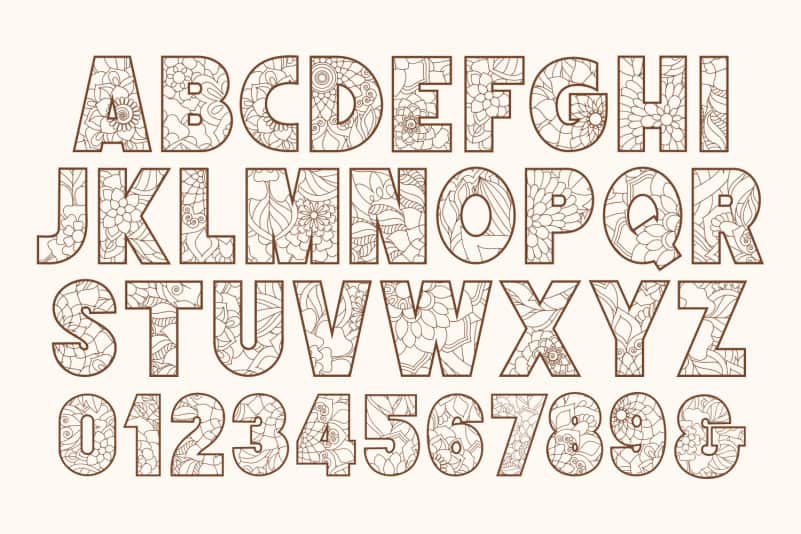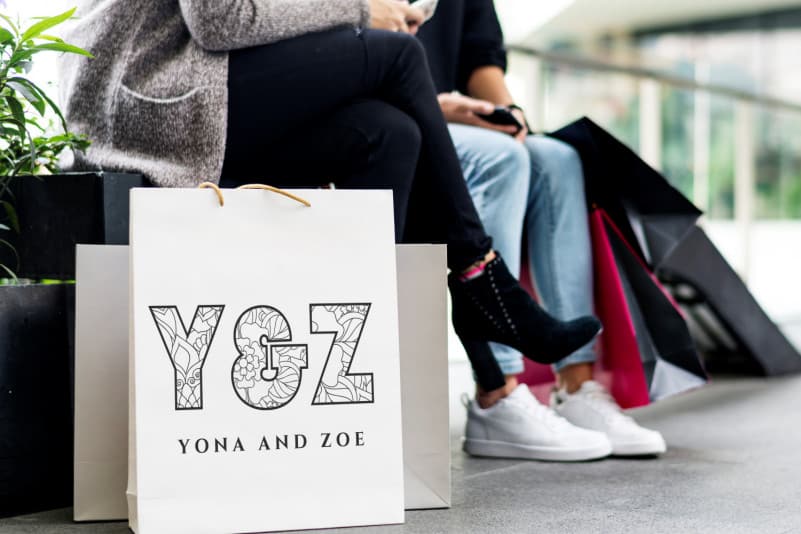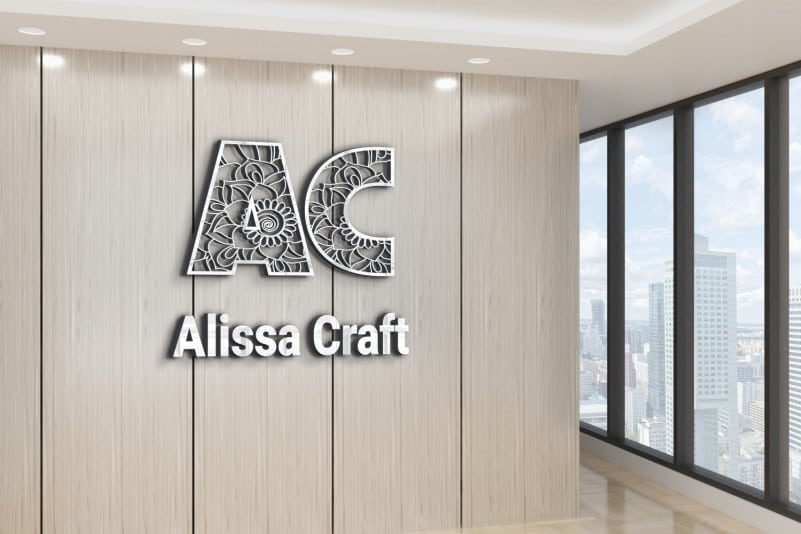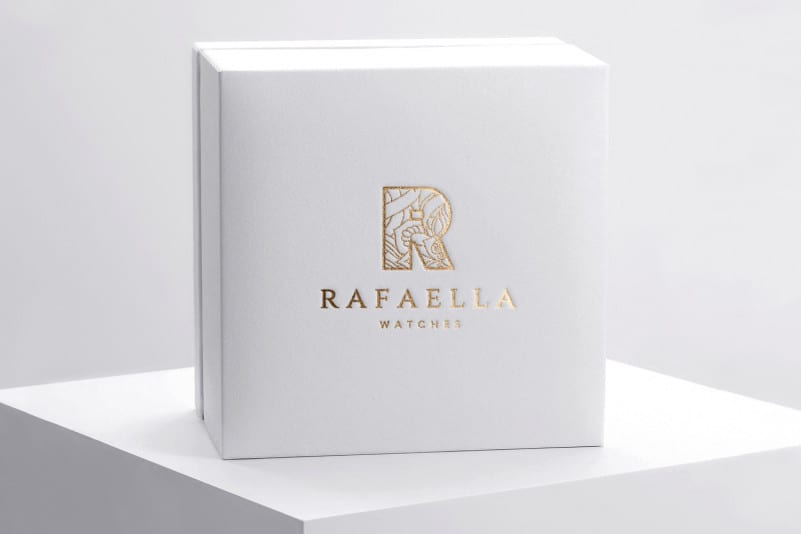
KEYZHA – Mandala Font
KEYZHA is Mandala Monogram font.
This font will looks awesome in many way to your project.
It features mandala-themed characters.
It is perfect for many different project such as logos & branding, invitation, stationery, wedding designs, social media posts, advertisements, product packaging, product designs, label, photography, watermark, special events or anything.
Use this font for any crafting project that requires a personalized look!